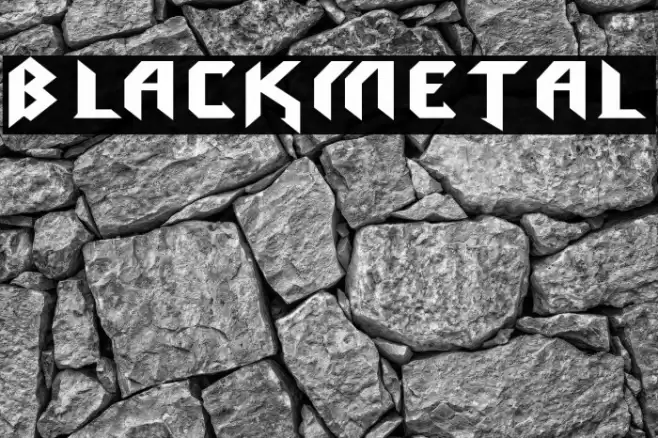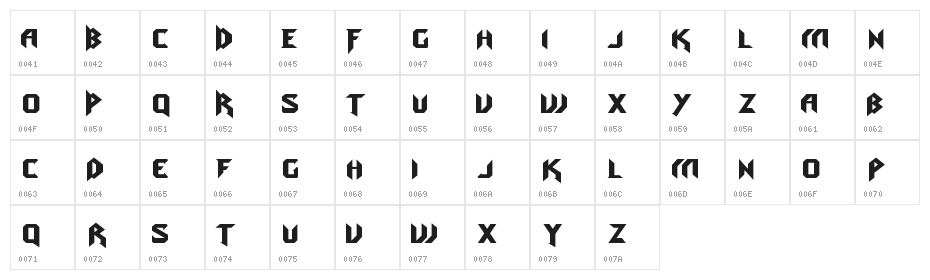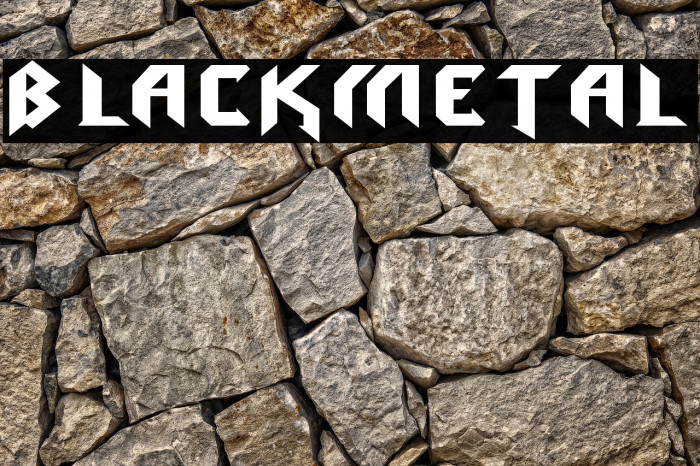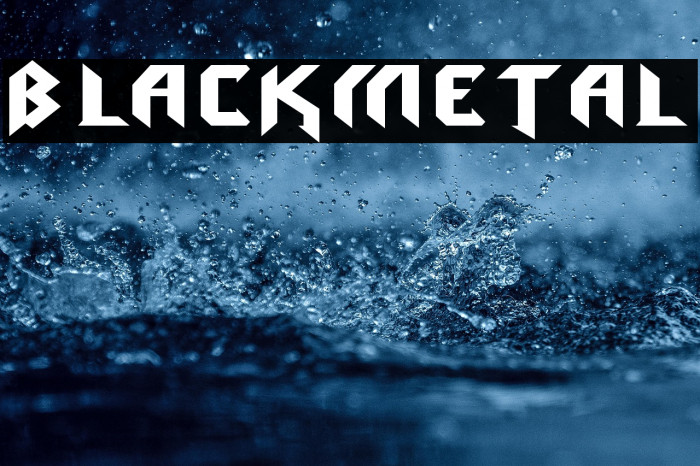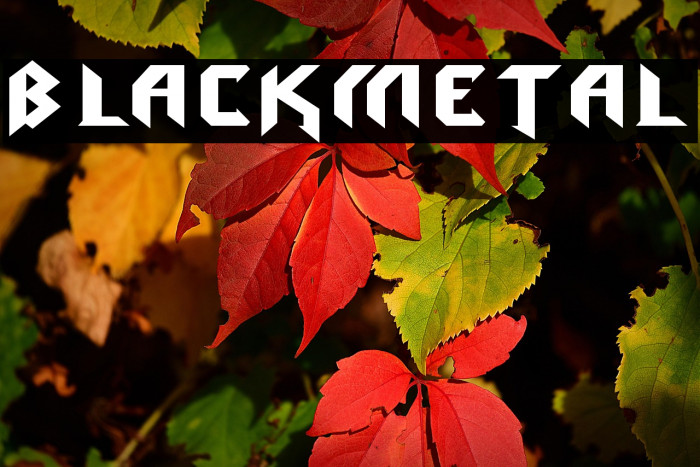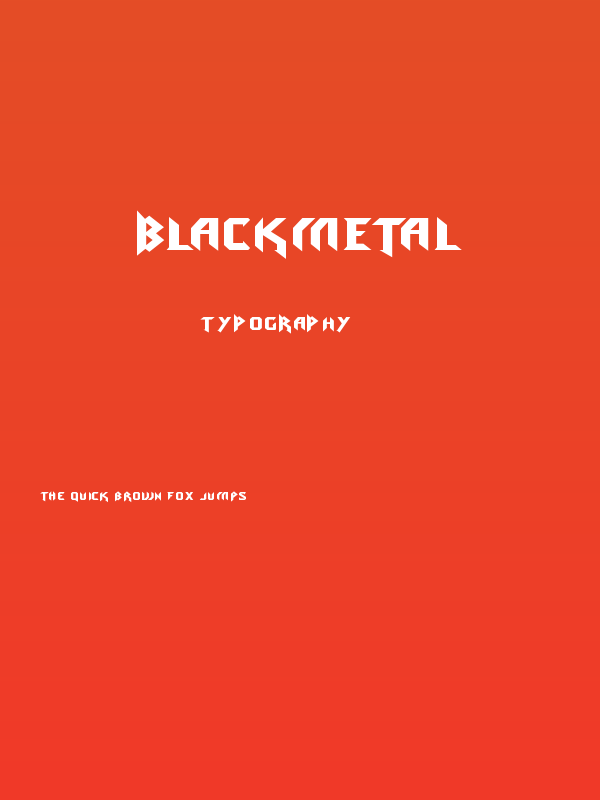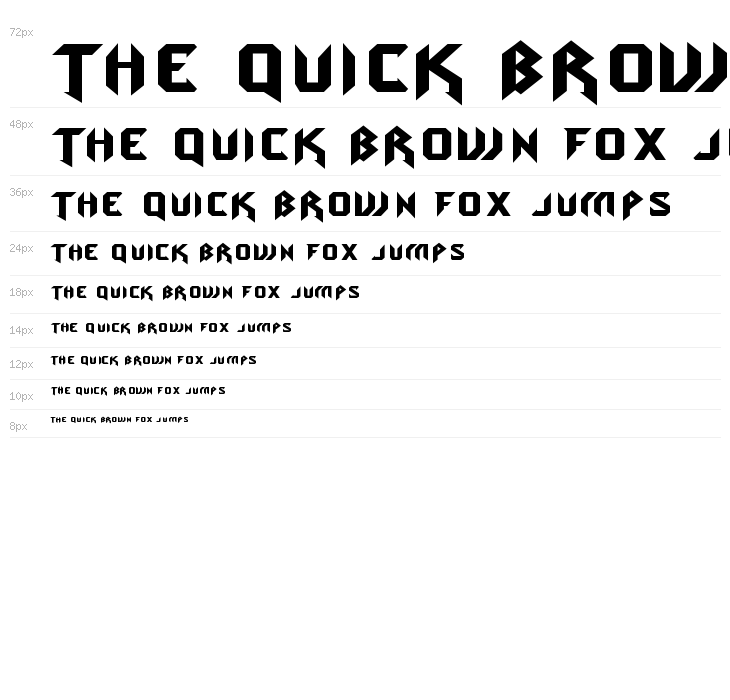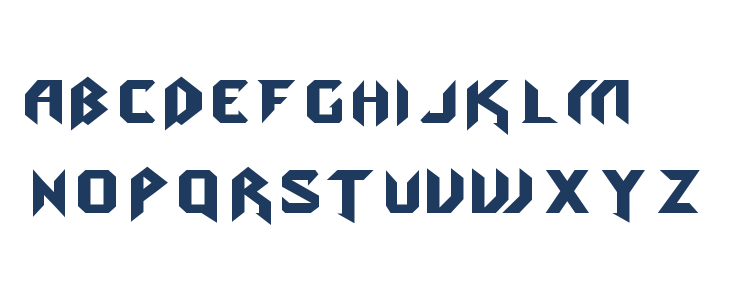
blackmetal Font
blackmetal Description
This font features a bold, angular design with sharp, pointed edges reminiscent of traditional blackletter styles but with a modern twist. The characters are heavily stylized, with a geometric structure that gives them a unique, aggressive appearance. The uppercase and lowercase letters maintain a consistent aesthetic, with each character exhibiting a strong presence. The font's design is highly decorative, making it suitable for projects that require a striking visual impact. The overall style is distinctly modern yet pays homage to historical typefaces, creating a fusion that is both eye-catching and memorable.
A bold, angular font with a modern blackletter-inspired design from Uncategorized fonts.
- Proposed Projects: Ideal for music album covers, posters, logos, and any project needing a bold, dramatic typeface.